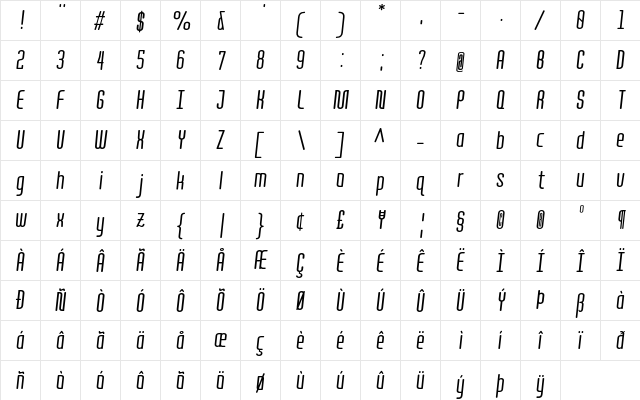
Quota Regular Italic Cond.
Design Context for Quota Typeface
Quota is a composed and adaptable typeface that performs quietly and consistently across a wide range of design contexts. The slanted form adds forward momentum and visual energy. The condensed width makes it efficient for tight spaces without sacrificing legibility.
Pro Tip: Try Quota for annotation and caption copy alongside an upright companion — the contrast in angle creates a dynamic but ordered typographic system.